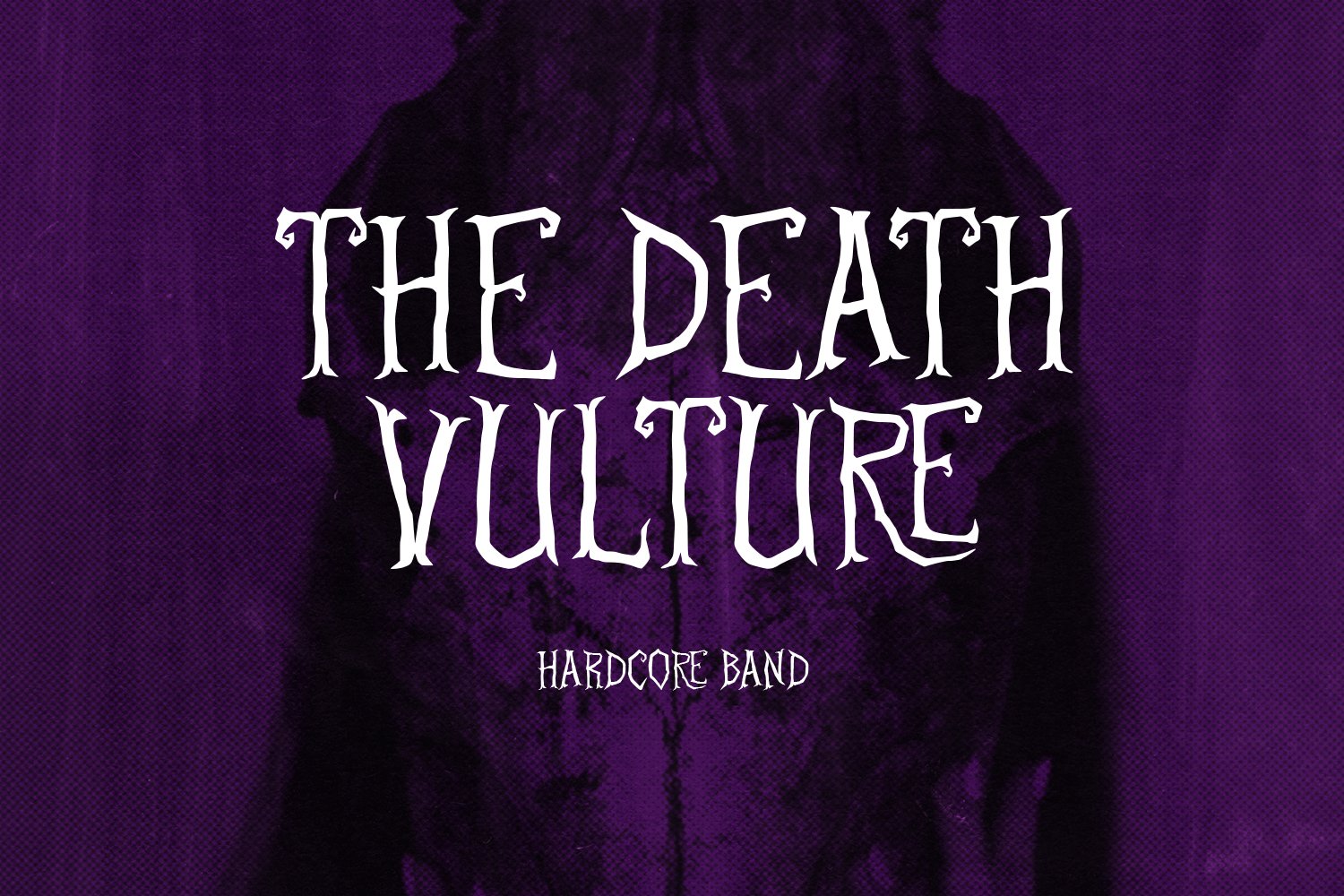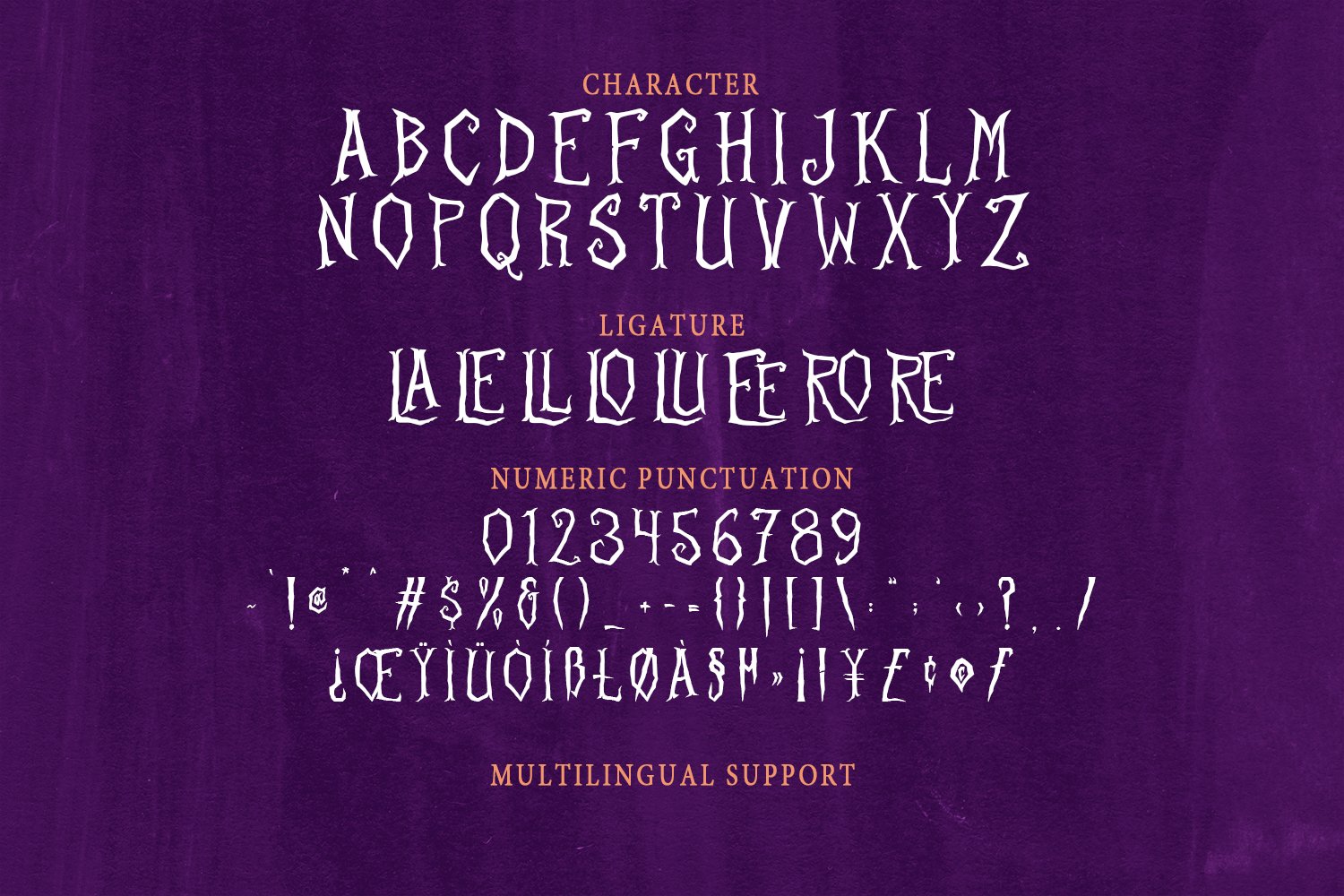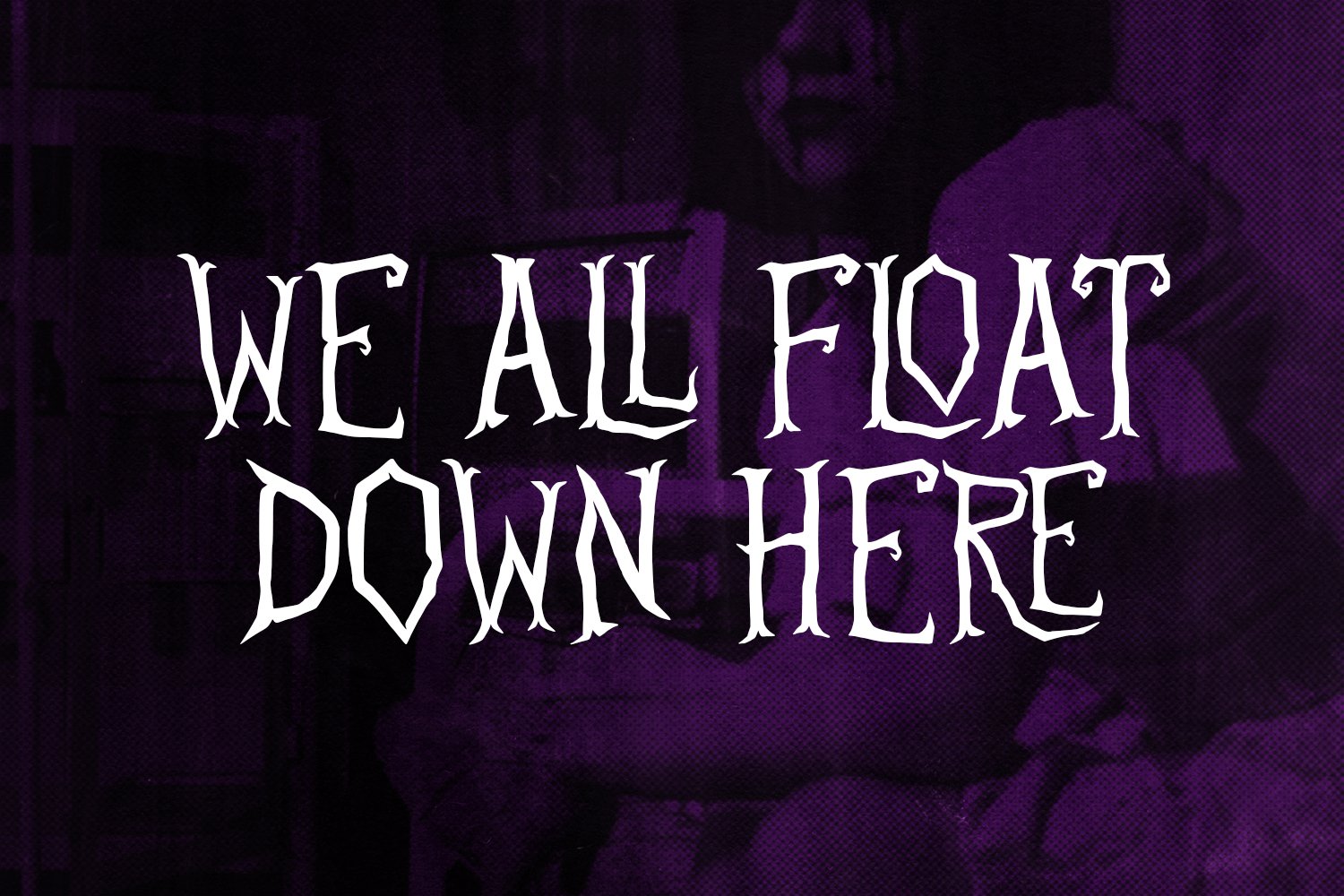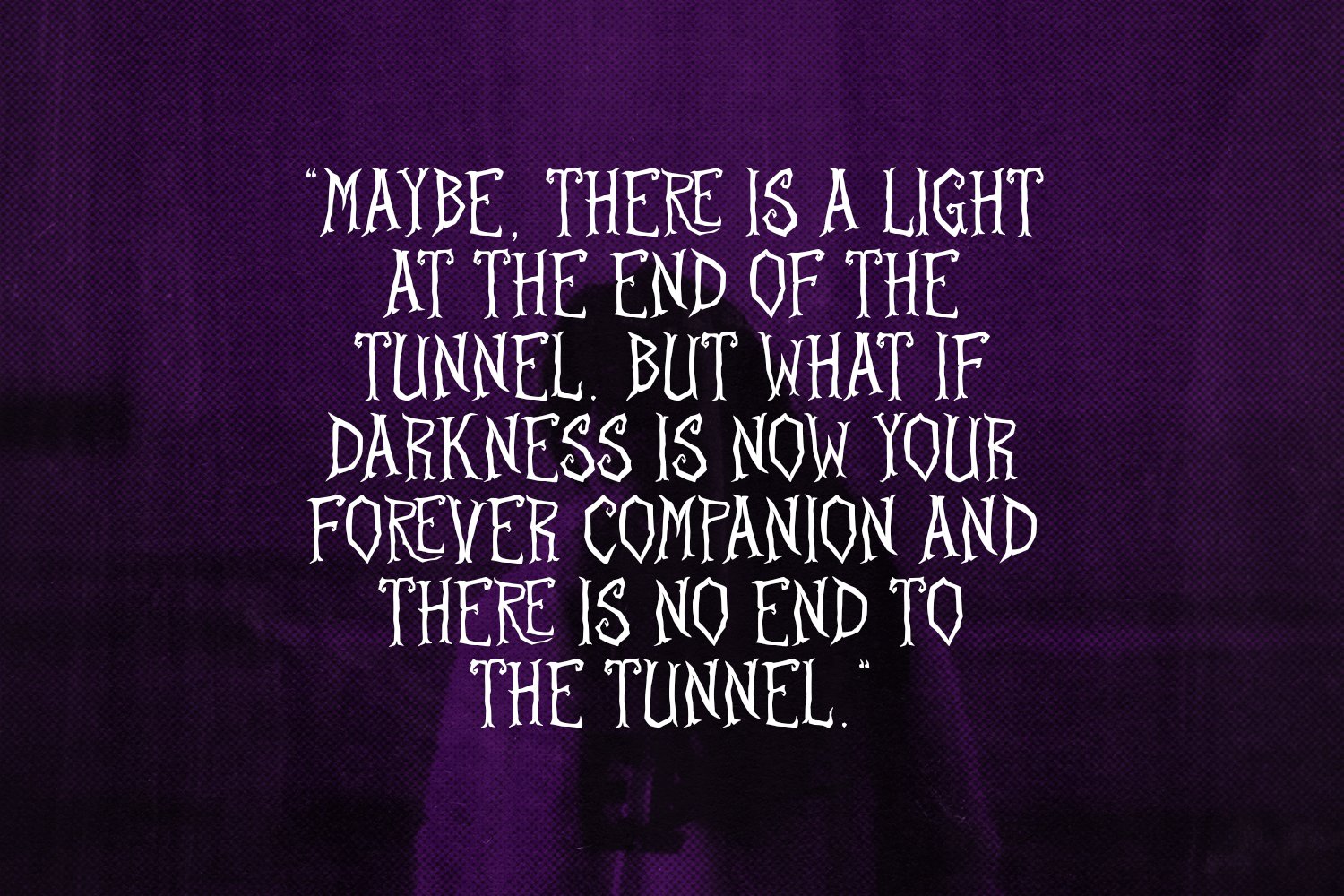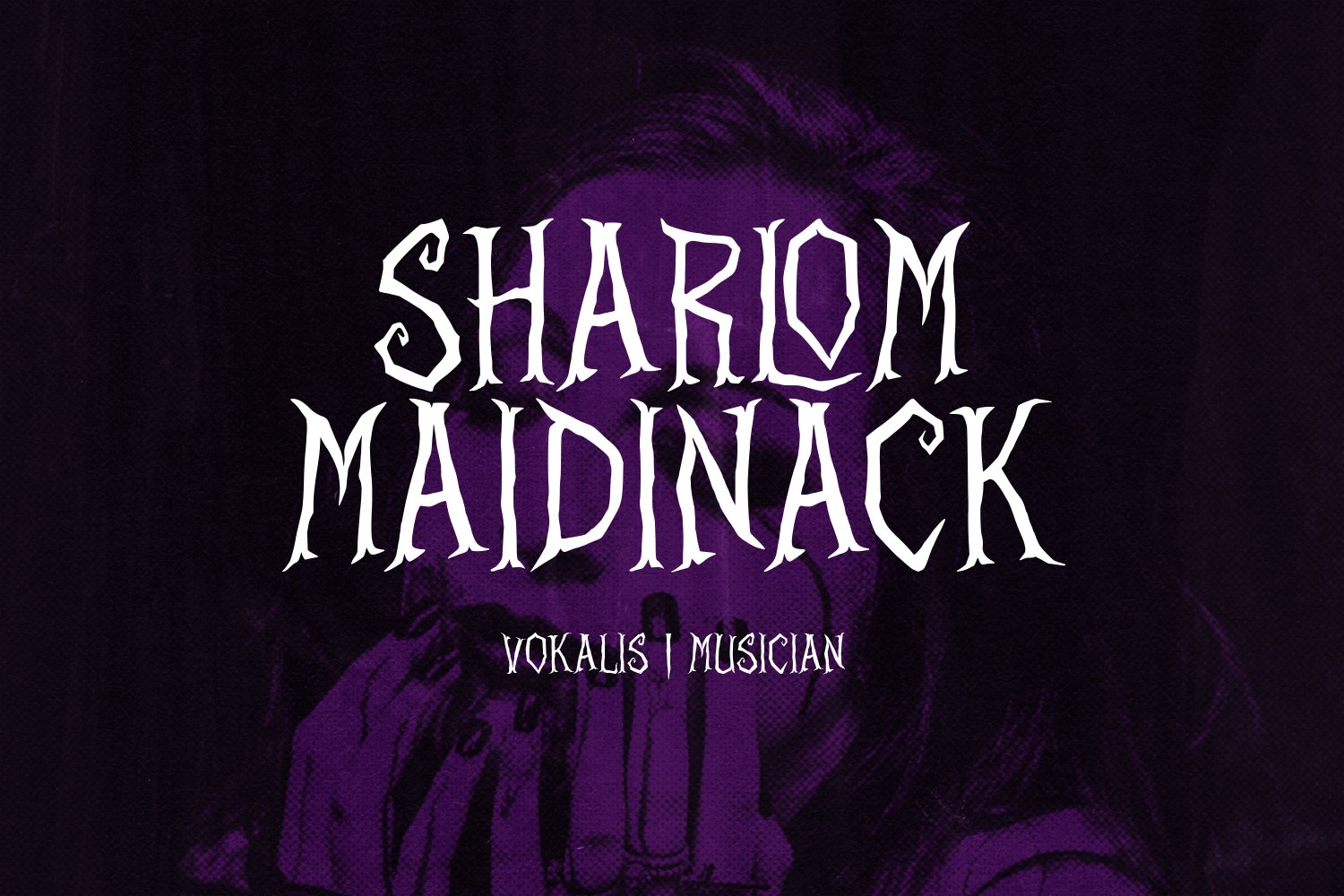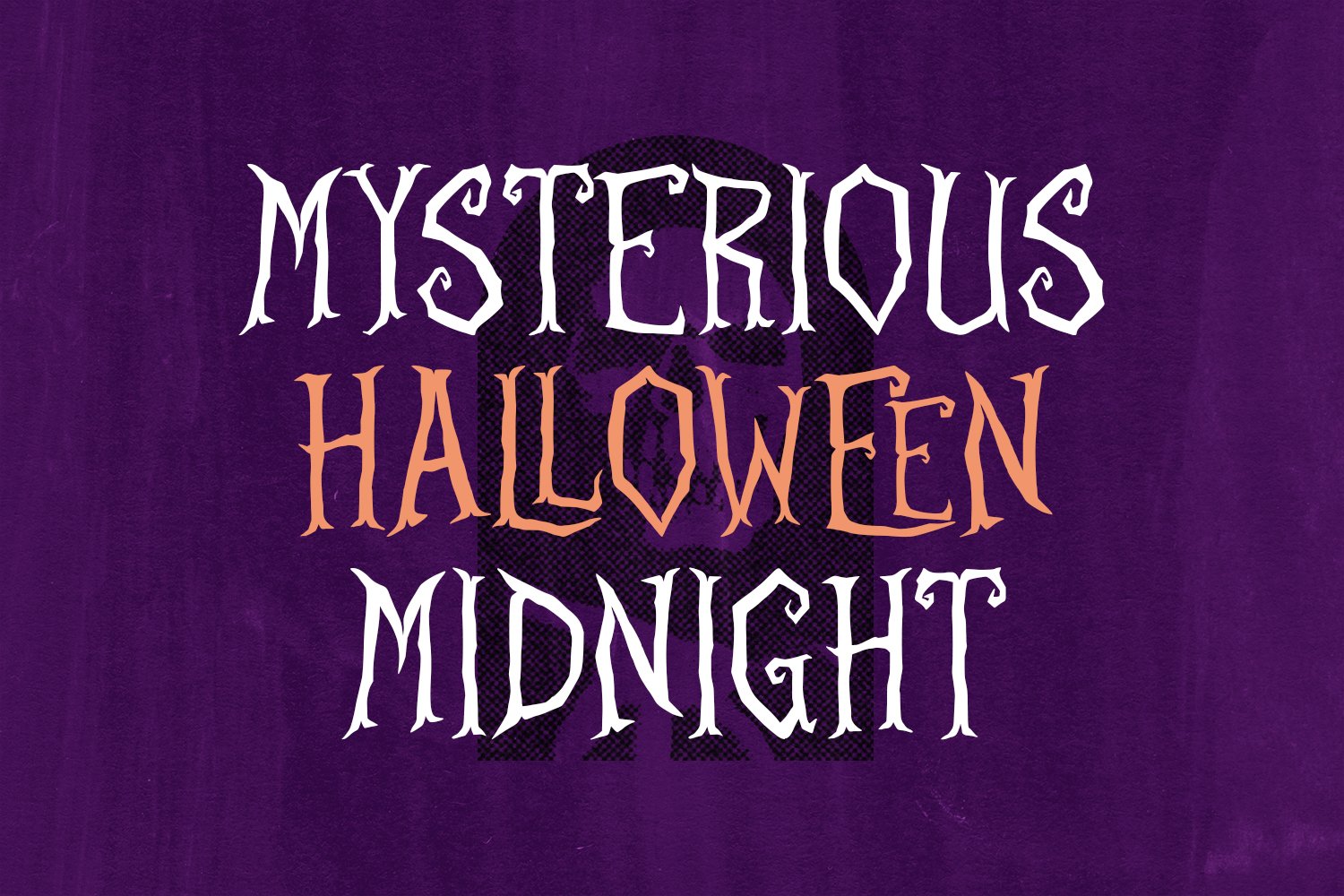
Magicluzzk Gothic Horror Display Font
Magicluzzk is a haunting, evocative display typeface designed to instantly inject a dose of authentic Gothic horror into your projects. Inspired by classic monster movies, vintage Halloween, and the chilling aesthetics of the underground music scene, this font screams dark, mysterious, and unforgettable.
Perfect for:
- Band Logos and Album Art: Especially for metal, hardcore, punk, and rock genres.
- Halloween & Horror Promotions: Invitations and seasonal advertising.
- Chilling Quotes & Book: Novels, poetry, and dramatic titles.
- Gaming Graphics: Titles, logos, and environmental text for horror games.
- Numbers and punctuation
- Ligatures